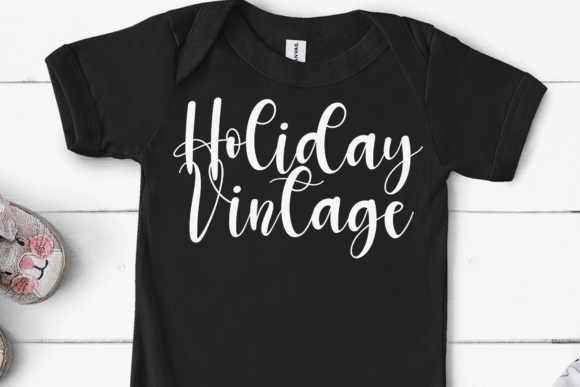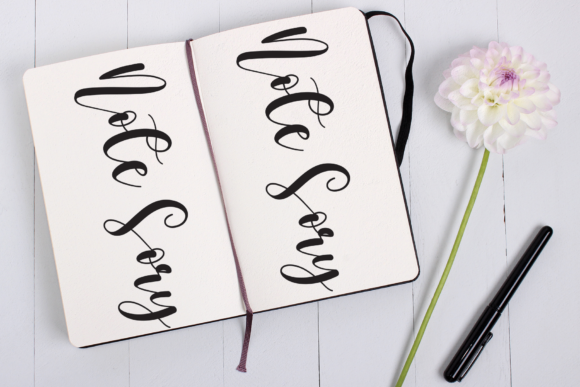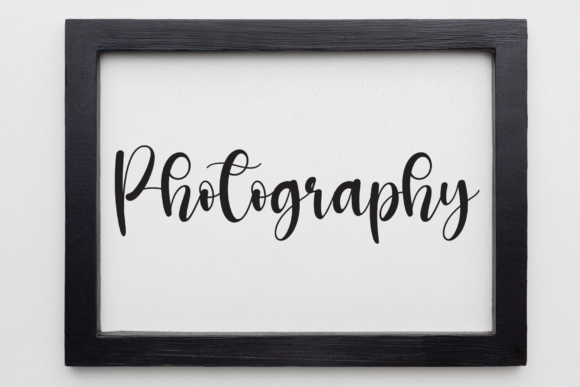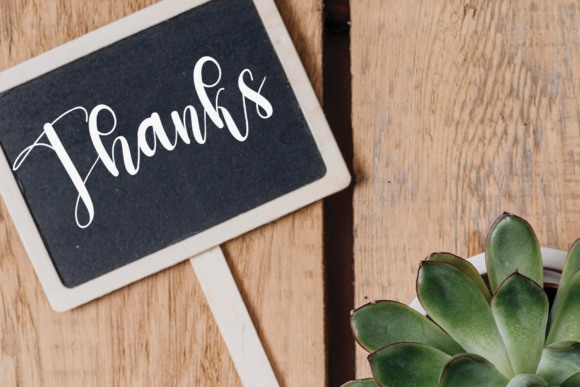
The Boho Font: A Beautiful Calligraphy Typeface to Elevate Your Designs
Boho is a beautiful and sweet calligraphy typeface with characters that dance along the baseline. It added a luxury spark to my design project, and I knew I had to share it with fellow designers, crafters, and creative hobbyists. In this article, I’ll give you an honest review of the Boho font, a practical guide on how to use it, and some valuable tips and tricks.
An Honest Review of Boho Font
What I Love About Boho Font
- ✨ Elegant and sophisticated design that’s perfect for luxury branding projects
- 💃 Beautifully crafted characters that add a touch of whimsy to any design
- 🎨 Versatile and can be used for a variety of design projects, from logos to invitations
- ⚠️ Some characters may not work well at very small font sizes, so it’s best to use it at larger sizes (from 18px and up)
- 🤔 Limited availability of certain characters, such as ligatures or special glyphs
The Designer Inspiration Behind Boho Font
The Boho font was inspired by the free-spirited and artistic vibe of the bohemian lifestyle. The designer wanted to create a font that captured the essence of this carefree and creative spirit, while still being elegant and sophisticated. The result is a beautiful calligraphy typeface that’s perfect for luxury branding projects, invitations, and other design applications.
A: The Boho font is best used for luxury branding projects, invitations, and other design applications where you want to add a touch of elegance and sophistication.